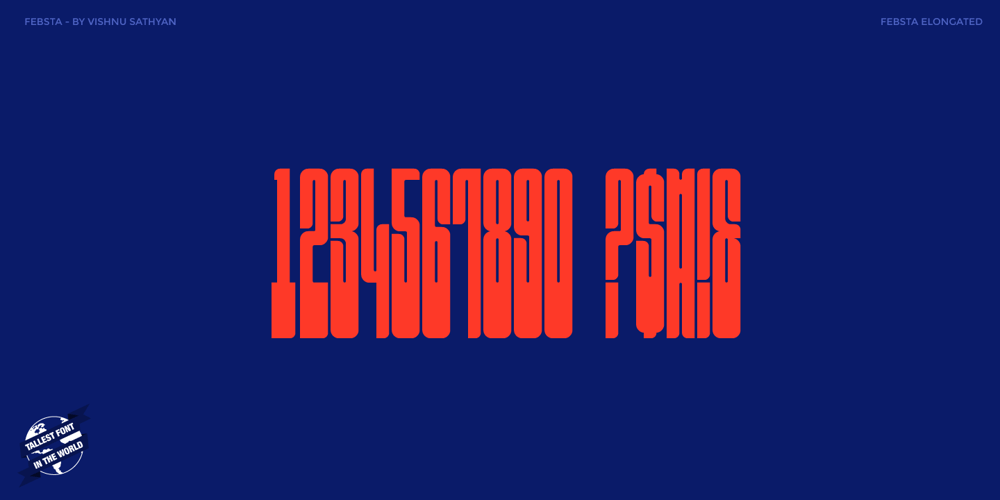
Febsta Font Family was designed by Vishnu Sathyan and published by Vishnu Sathyan. Febsta contains 2 styles and family package options. Presenting a font with the tallest x-height in the world. Febsta. Comes only with caps for now. Support me to create small letters.